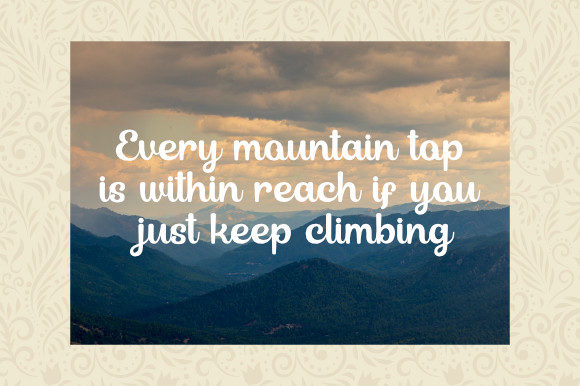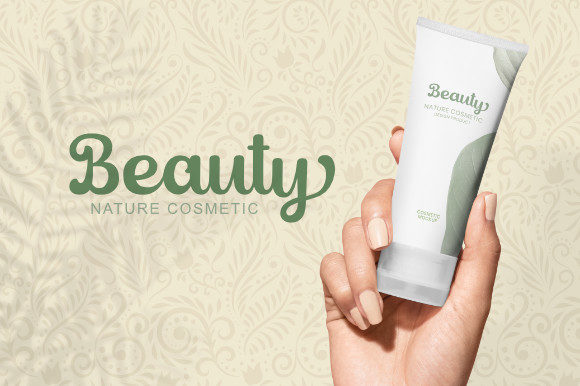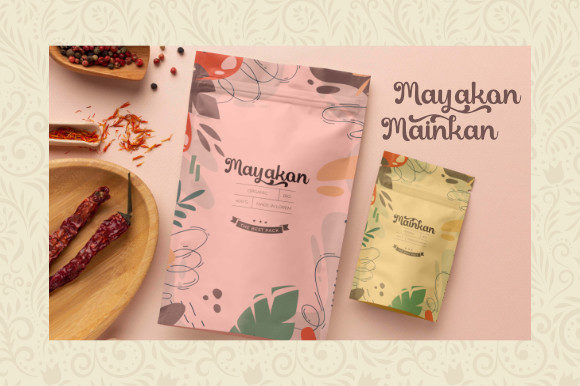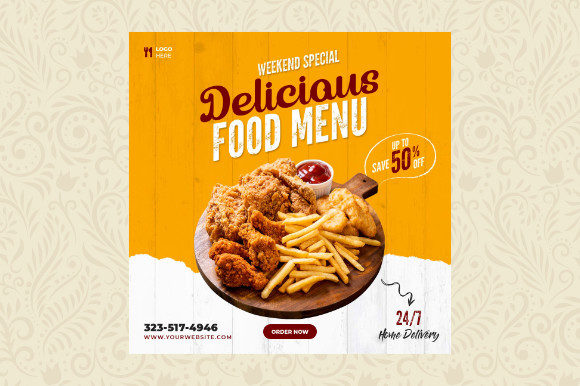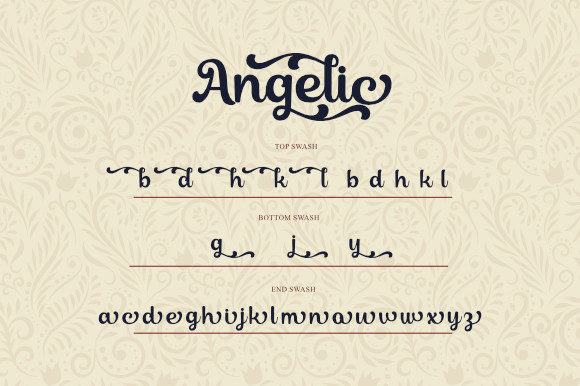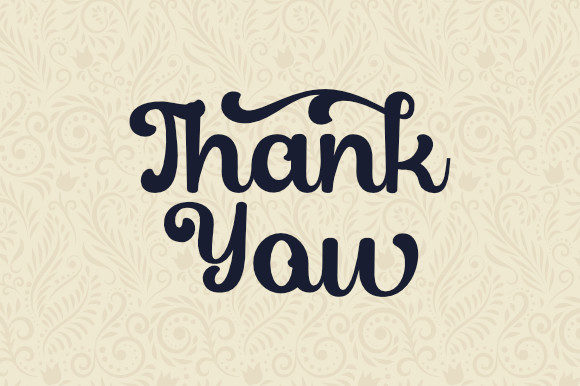
Introducing Angelic Font: Elevate Your Designs with Elegance and Whimsy
Are you on the hunt for a font that embodies both elegance and playfulness? Look no further than Angelic Font, a stunning handwritten typeface that is sure to captivate your audience. With its swirly and pretty design, Angelic Font is perfectly balanced and varied, making it an ideal choice for a wide range of design projects.
The Characteristics of Angelic Font
Angelic Font boasts a unique blend of characteristics that set it apart from other fonts. Its swirly and curly design elements add a touch of whimsy and playfulness, while its balanced and varied letterforms ensure that it remains elegant and refined. This font is meticulously crafted to meet the expectations of designers and crafters who demand high-quality typography.
Angelic Font is an incredibly versatile typeface that can be used in a multitude of design projects. Whether you’re working on a book, magazine, invitation, or marketing material, this font is sure to add a natural and stylish flair to your design. Its unique blend of elegance and playfulness makes it an ideal choice for:
- Book covers and interior design
- Magazine layouts and article headings
- Marketing materials, such as brochures and flyers
Why Choose Angelic Font?
With so many fonts available, why choose Angelic Font? Here are just a few reasons why designers and crafters are falling in love with this beautiful typeface:
- Unique and eye-catching design: Angelic Font’s swirly and curly design elements make it stand out from more traditional fonts.
- Highly versatile: This font can be used in a wide range of design projects, from books and magazines to marketing materials and branding.
- Elegant and refined: Despite its playful design elements, Angelic Font remains elegant and refined, making it perfect for designs that require a touch of sophistication.
- Easy to read: The balanced and varied letterforms ensure that Angelic Font is easy to read, even in smaller sizes.
Tips for Using Angelic Font
To get the most out of Angelic Font, here are a few tips to keep in mind:
- Use it as a headline font: Angelic Font’s unique design makes it perfect for use as a headline font, adding a touch of elegance and whimsy to your design.
- Pair it with a sans-serif font: For body text, consider pairing Angelic Font with a clean and simple sans-serif font to create a beautiful contrast.
- Experiment with colors and textures: Angelic Font looks stunning in a variety of colors and textures, so don’t be afraid to experiment and find the perfect combination for your design.
Angelic Font is a stunning handwritten typeface that is sure to elevate your designs with its unique blend of elegance and whimsy. With its swirly and pretty design, balanced and varied letterforms, and high level of versatility, this font is perfect for a wide range of design projects. Whether you’re a designer, crafter, or DIY enthusiast, Angelic Font is sure to become a favorite in your typography arsenal.